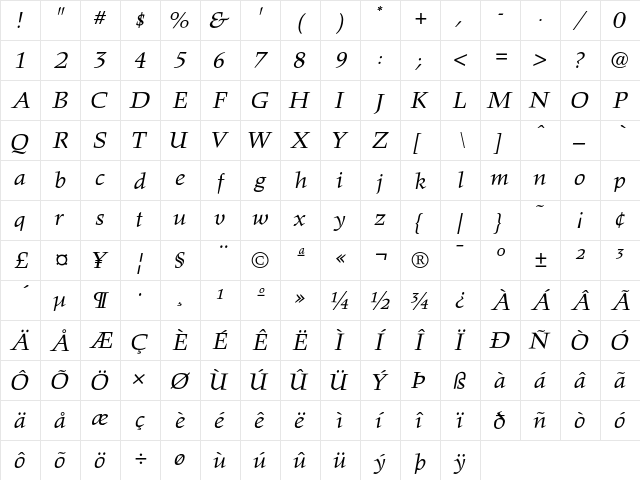
Hawkhurst LT Std Regular Italic
| Foundry | Linotype Library GmbH |
| Designer | Richard Yeend |
Design Context for Hawkhurst LT Std Regular Typeface
Hawkhurst LT Std Regular offers clean, dependable letterforms without strong stylistic allegiance, making it a practical choice for designers who need flexibility. The slanted form adds forward momentum and visual energy. The delicate stroke weight brings airiness and refinement to layouts.
Pro Tip: Use Hawkhurst LT Std Regular for emphasis, pull quotes, and subheadings where its slanted energy can add rhythm to the layout.